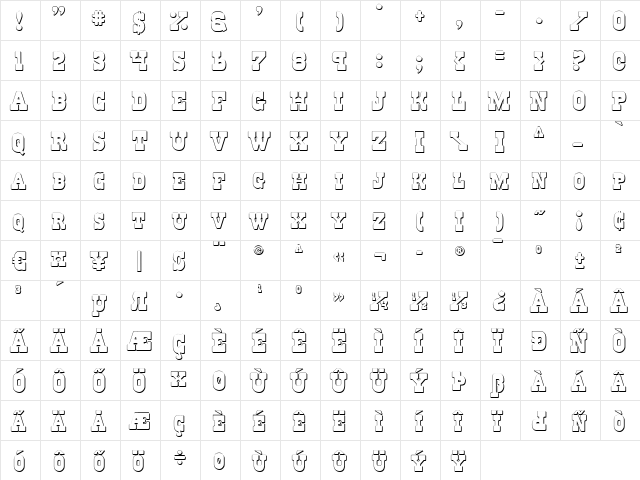
Regulators Shadow Shadow
Regulators Shadow brings ornamental detail and strong personality to headlines and identities, where visual impact matters more than quiet functionality.
Font Pairing: Pair with a clean neutral sans-serif for body copy to let Regulators Shadow's character lead without overwhelming the composition.
Pro Tip: Treat Regulators Shadow as the centrepiece of your typographic hierarchy. One strong heading set in a decorative face can carry an entire layout.